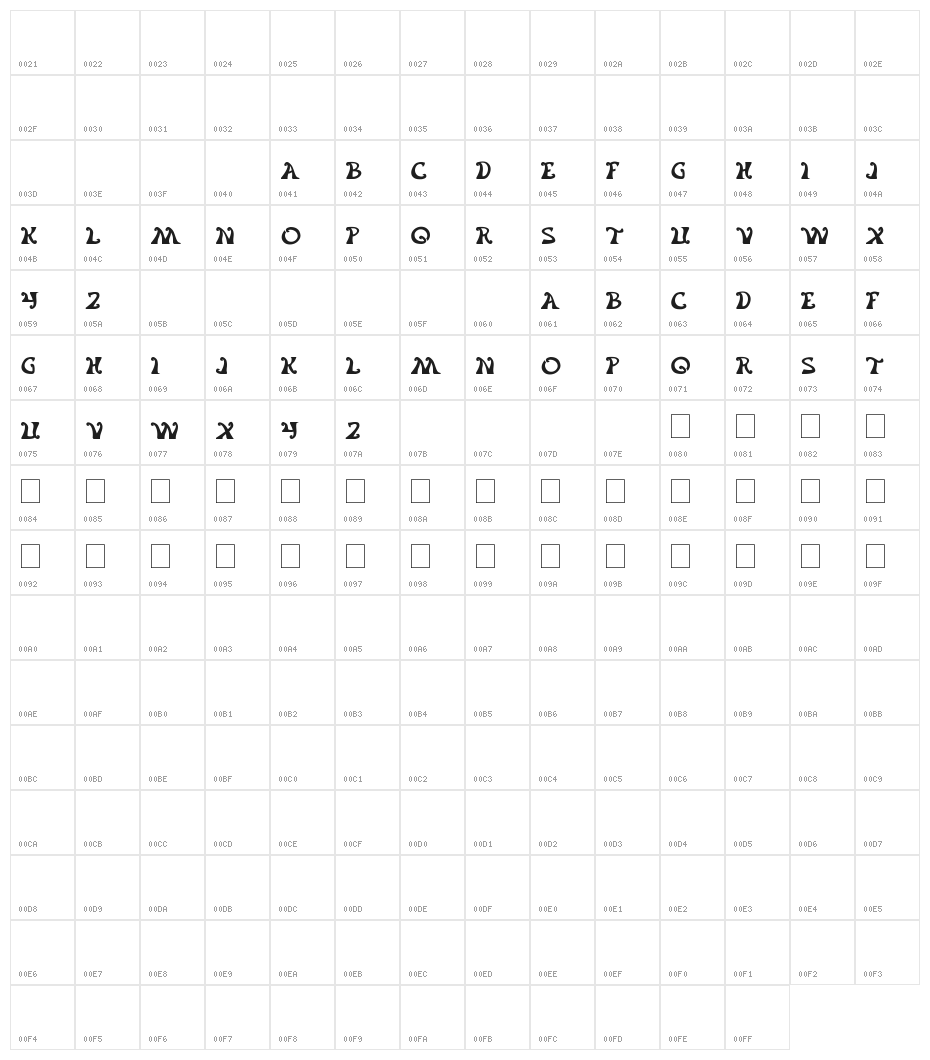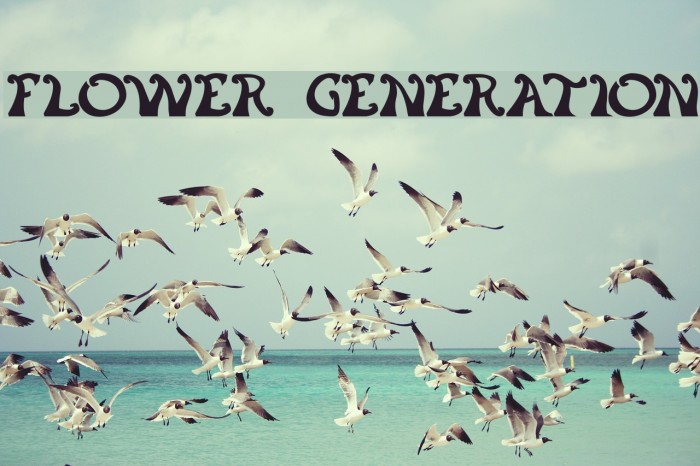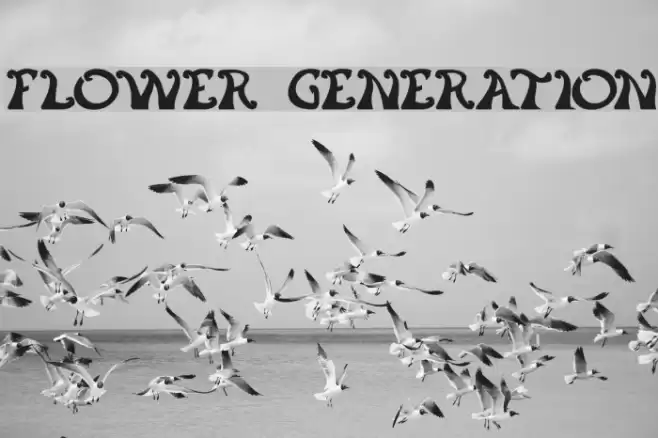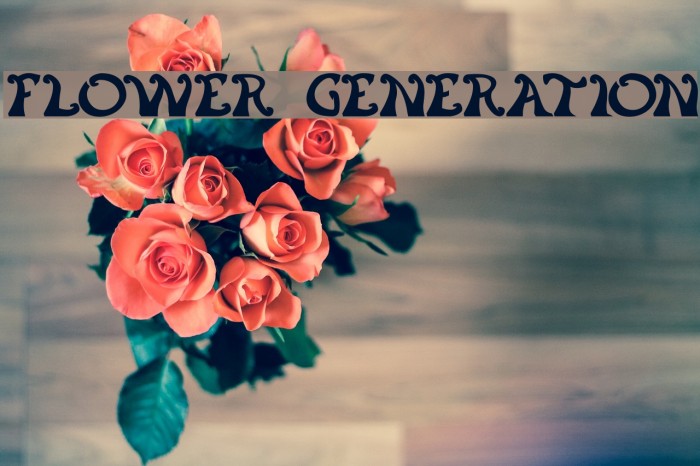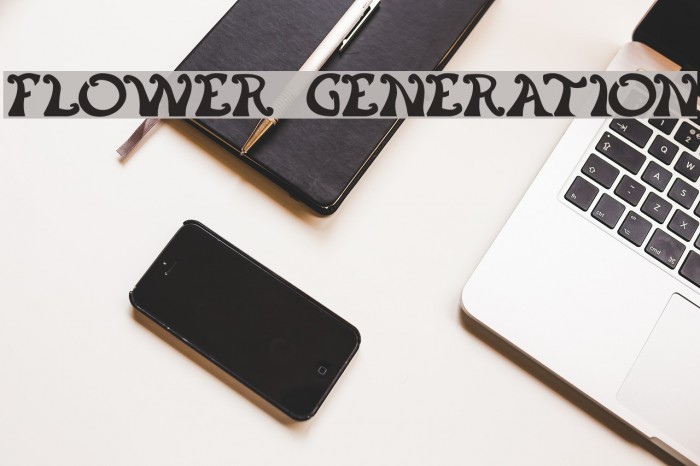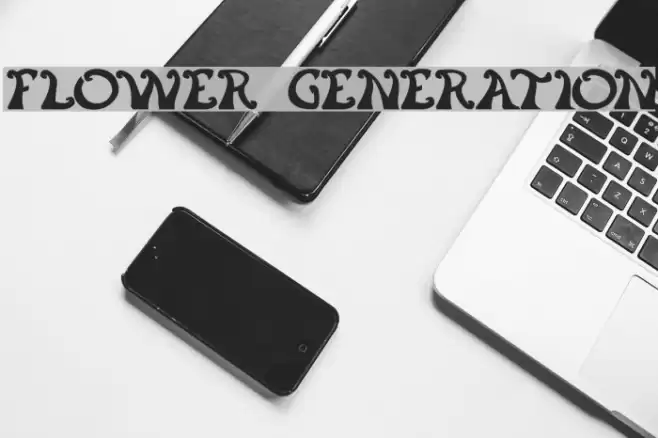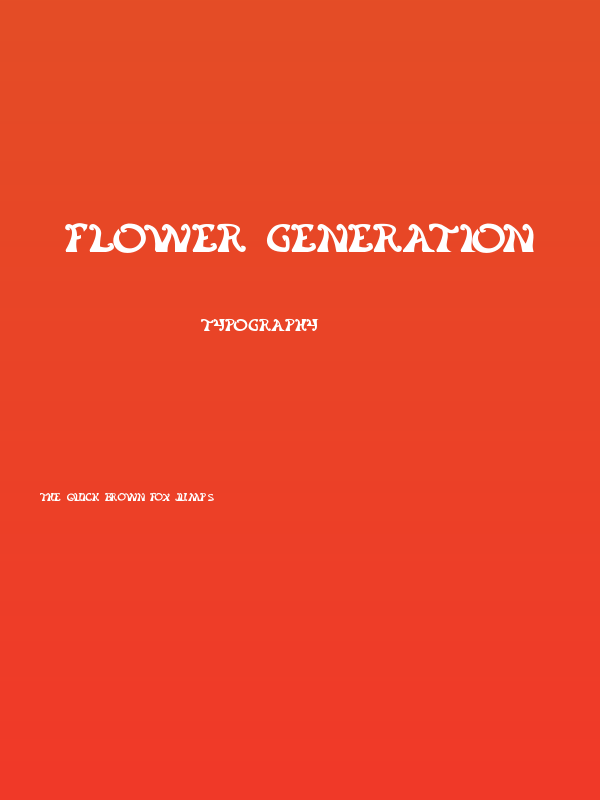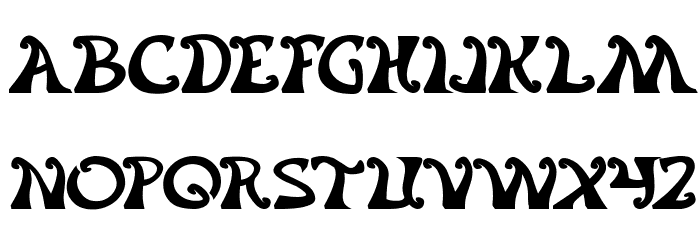
flower generation Font
flower generation Description
This font features a bold and decorative style with unique, flowing curves and flourishes that give it an artistic and whimsical appearance. The characters are well-defined with a consistent thickness, creating a strong visual impact. The uppercase letters exhibit a playful yet elegant design, with each letter incorporating subtle embellishments that enhance its overall charm. The font maintains a balanced structure, making it suitable for creative and expressive projects. Its distinctive style is reminiscent of vintage or retro aesthetics, adding a touch of nostalgia to any design.
| Overall Style | Vintage, Decorative |
| Proposed Projects | Ideal for posters, logos, branding, and creative design projects that require a bold and artistic touch. |